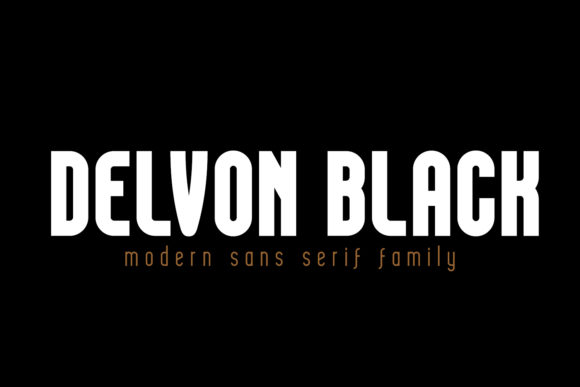
**Introducing Delvon Black: The Ultimate Title Font for Maximum Impact**
Prepare to be mesmerized by Delvon Black, the captivating sans serif font that will elevate your designs to new heights. Its bold and confident strokes exude an air of professionalism and authority, making it the perfect choice for captivating titles that demand attention.
**Unleash the Art of Simplicity**
Delvon Black's clean and uncluttered style empowers you to convey your message with clarity and impact. Its simple yet striking form ensures that your titles stand out from the crowd, leaving a lasting impression on your audience.
**Versatility at Your Fingertips**
Whether you're crafting website headlines, designing eye-catching posters, or composing social media posts that pack a punch, Delvon Black adapts seamlessly to any creative endeavor. Its versatility makes it an indispensable tool in your design arsenal.
**A Timeless Masterpiece**
Delvon Black transcends fleeting trends, embodying a timeless elegance that will never go out of style. Its classic appeal ensures that your designs will remain captivating and impactful for years to come.
**Effortless Visual Impact**
With Delvon Black, you'll effortlessly create titles that command attention and convey your message with precision. Its bold strokes and clean lines work together to deliver maximum visual impact, leaving your audience spellbound.
**Transform Your Designs Today**
Experience the power of Delvon Black and witness how it can transform your designs into masterpieces. Its versatility, timeless appeal, and effortless visual impact will unlock endless creative possibilities.
**Delvon Black: The Title Font That Will Captivate Your Audience**